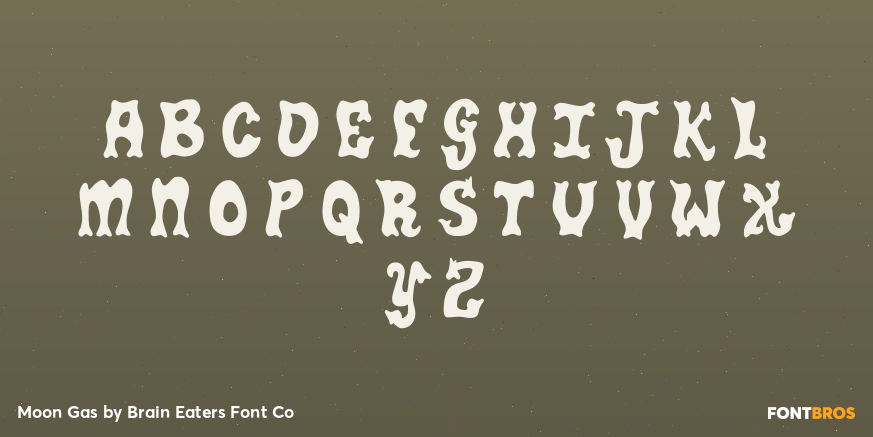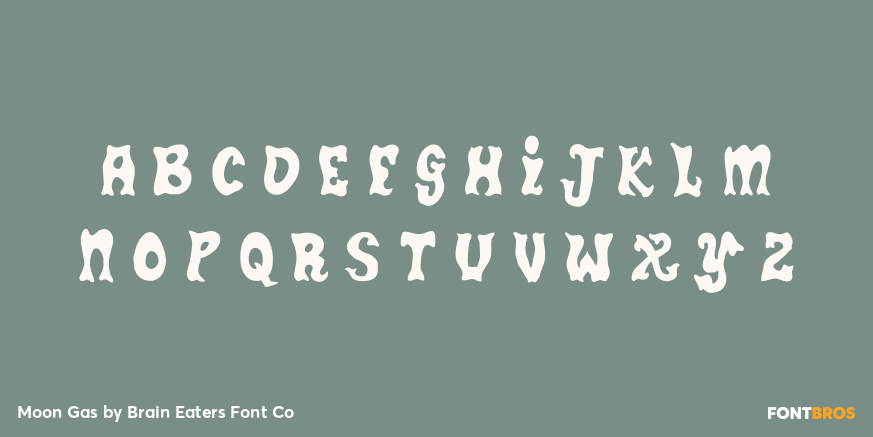
Moon Gas
Font Family by Brain Eaters Font Co
Glenn Yarbrough anyone? "For Emily, Whenever I may find her" is the inspiration for this type design. "The Lonely things" record inspired the Space Blaster BE font. I've never actually heard him sign, but he had some great letterforms!?!